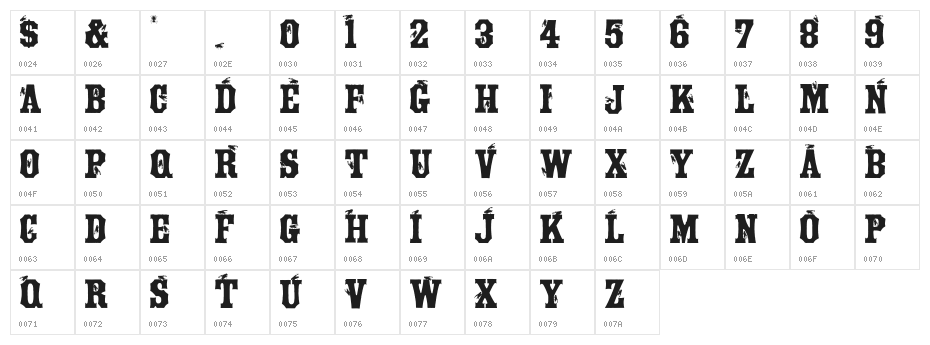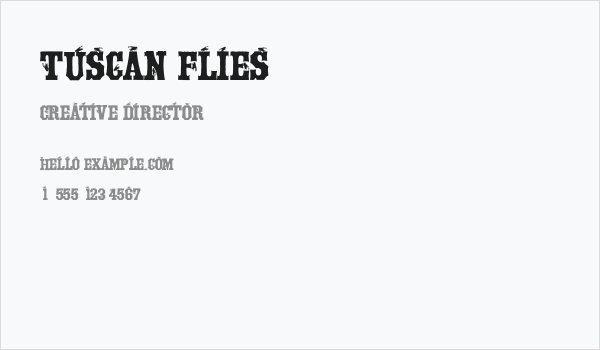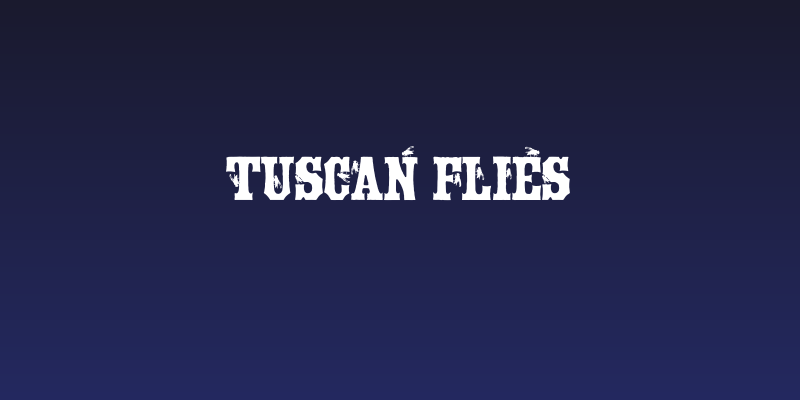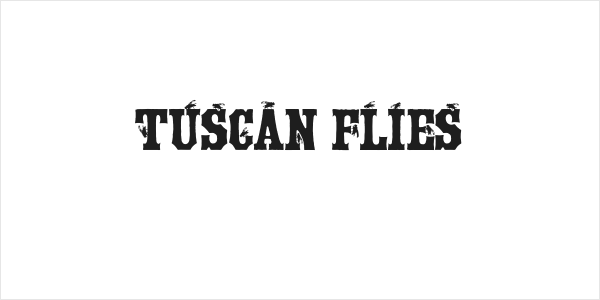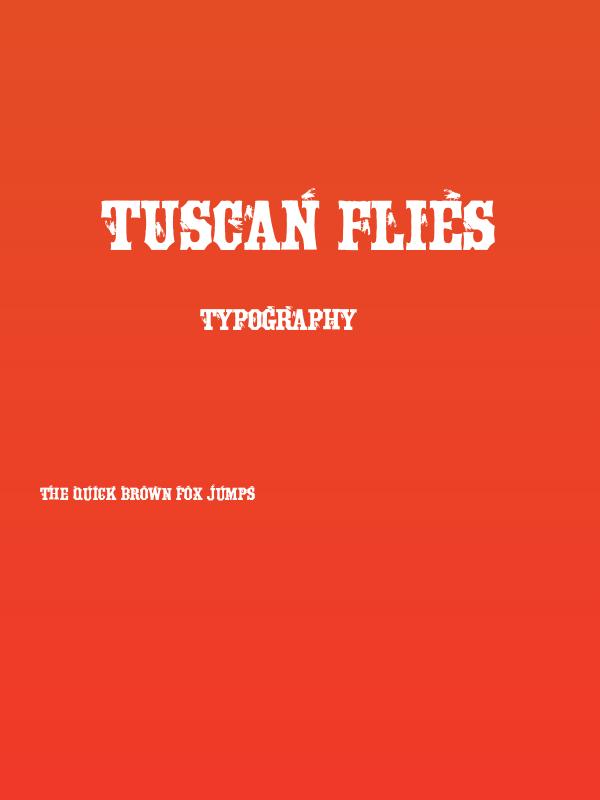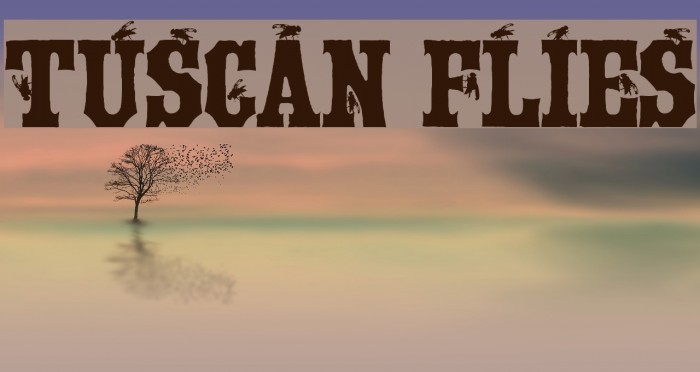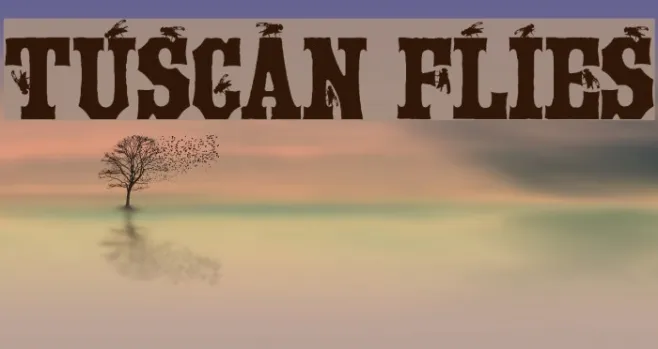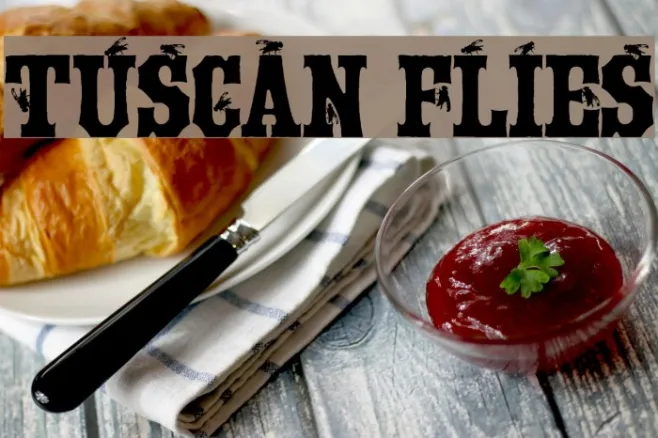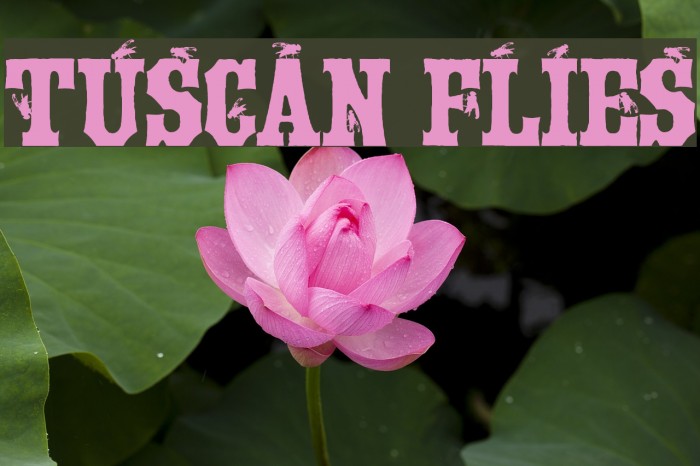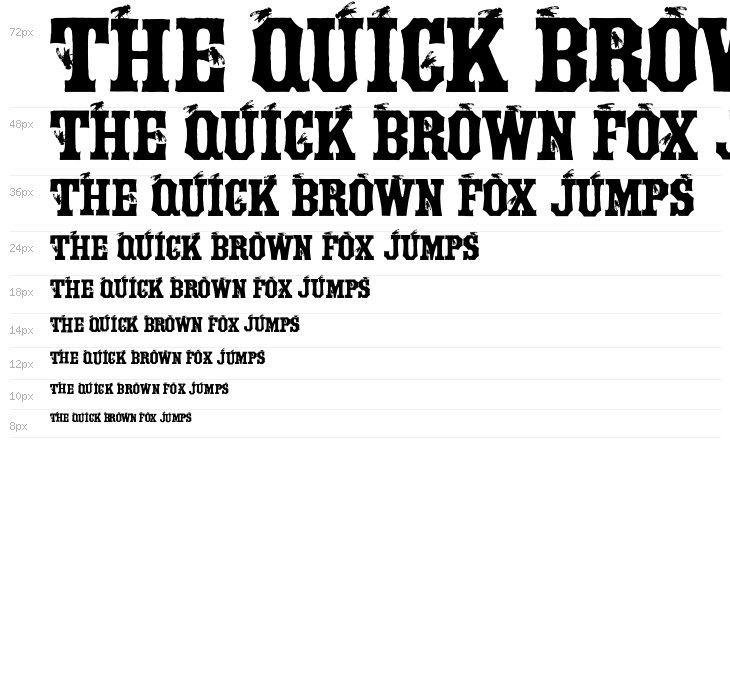
Tuscan Flies Font
Tuscan Flies Description
This font features a bold and decorative style with a unique twist. Each character is adorned with intricate fly motifs, giving it a distinct and edgy appearance. The uppercase and lowercase letters maintain a consistent width, creating a cohesive look across the typeface. The numbers and special characters are equally detailed, ensuring a uniform aesthetic. The font's boldness and decorative elements make it stand out, while the fly motifs add an element of surprise and creativity. This font is perfect for projects that require a bold statement and a touch of whimsy.
| Proposed Projects | Ideal for horror-themed posters, edgy branding, creative book covers, and unique event invitations. |